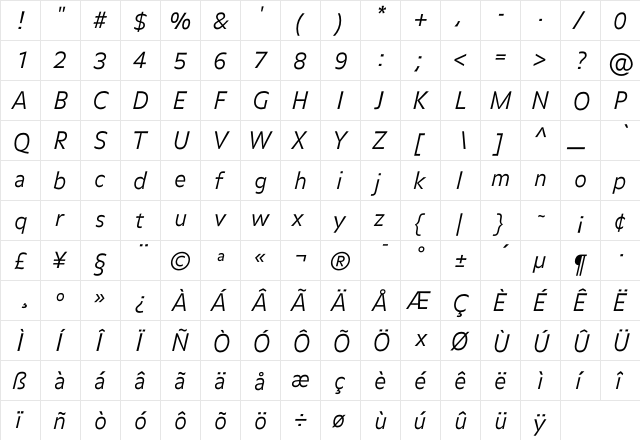
BalanceLight Italic Font Preview
Design Context for BalanceLight Typeface
BalanceLight takes a measured approach to typography — its balanced proportions and neutral character make it a reliable workhorse for both digital and print work. The slanted form adds forward momentum and visual energy. The delicate stroke weight brings airiness and refinement to layouts.
Pro Tip: Try BalanceLight for annotation and caption copy alongside an upright companion — the contrast in angle creates a dynamic but ordered typographic system.